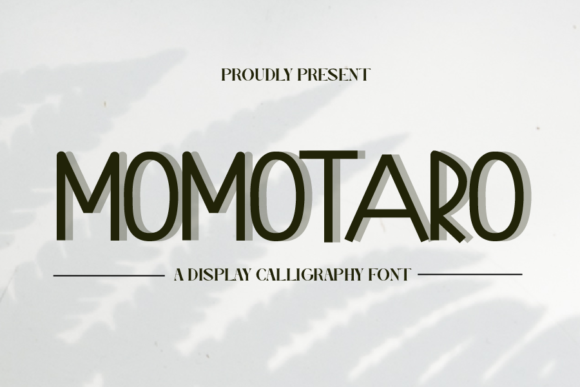
Introducing Momotaro Font, a display font that exudes a charm like no other. Its simple yet neat lettered design is a breath of fresh air, adding a touch of elegance and sophistication to your creative endeavors.
Immerse yourself in the world of Momotaro Font, where your ideas take center stage. This font is not just a collection of letters; it's a gateway to unlocking your limitless creativity. With Momotaro Font, your designs will shine brighter than ever before.
Unleash the power of Momotaro Font and witness the transformation of your creative visions. Its clean lines and graceful curves will elevate your designs, leaving a lasting impression on all who encounter them.
Whether you're crafting a signature logo, designing captivating posters, or creating eye-catching social media graphics, Momotaro Font is your perfect companion. Its versatility knows no bounds, allowing you to effortlessly adapt it to any project.
So, dive into the world of Momotaro Font and let your creativity soar. Experience the joy of creating designs that resonate with your audience and leave an indelible mark in the world of design.